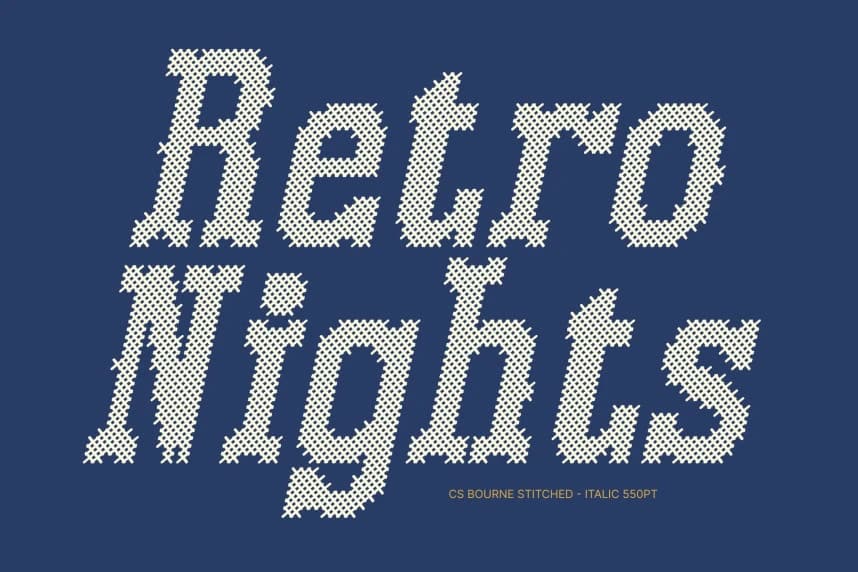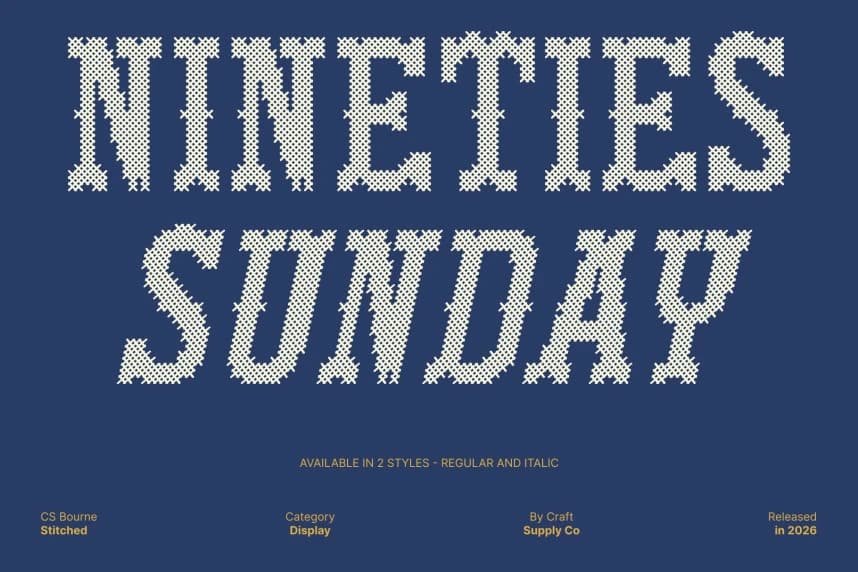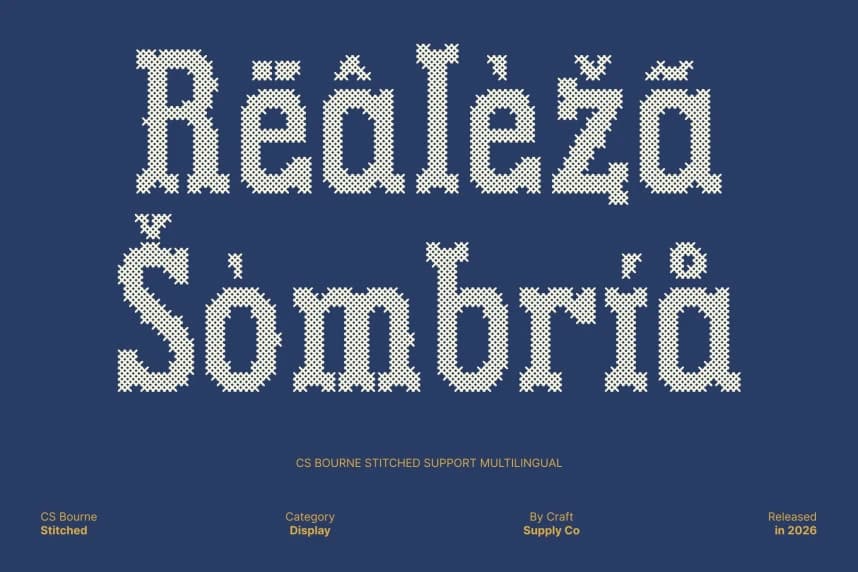
CS Bourne Stitched Font
CS Bourne Stitched Font – Tuscan Font: A Journey into Vintage Elegance Decorative Tuscan Display Font with Handcrafted Texture. This is a captivating Tuscan-style display font that blends ornate decorative elements with the nostalgic charm of vintage typography.